How to use a color font
Variable fonts were a game changer for fonts on the web, but you can take it a step further with the addition of the color font spec. Control both the font and the colours of the font truly enabling Photoshop like text effects with real text on the web.
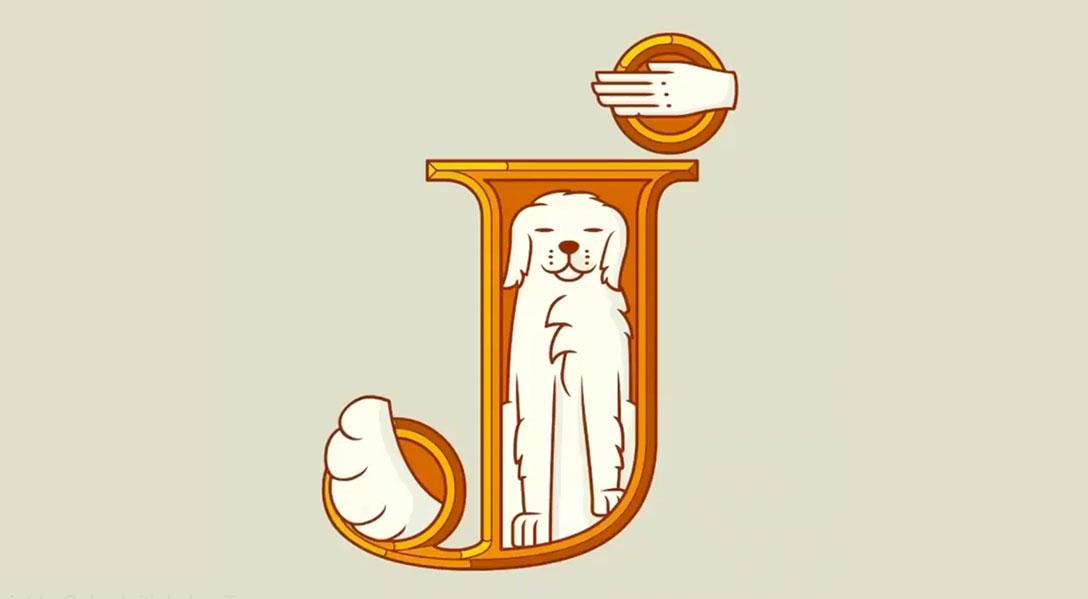
Variable Color Initials by Arthur Reinders Folmer
Where variable fonts added new axis to combine multiple font styles into the one file color fonts do a similar thing but with color. Color fonts have been around in one form or another for a while but they haven't really picked up much traction, there have been a number of different specs for them and unfortunately not all of them are compatible with variable fonts. I don't like to take sides, but in my opinion not supporting variable fonts is a huge mistake for the color font spec. So today we'll look at some variable color fonts. (I may be a little biased)
Essentially Color Fonts allow font designers to merge multiple color layers into one font file and assign a color to each layer. They come with one or more colour palettes predetermined but developers can access and change these values through CSS using the font-palette property.
Support for variable color fonts is pretty good, you might find some discrepancies with rendering between the browsers, but they are still something you can start experimenting with now. Check out my latest list of cool colour fonts you can play with including some from Google Fonts Color font list.
The reason I love Variable color fonts is that they make some of my original experiments in text effects completely obsolete. For me this demonstrates the growth and maturity of the platform and specs and also saves us a lot of time and effort.
There is a great short article called A tiny guide to Variable Color Fonts by Typearture that talks through how they are made and also has some great examples of what you can do with them outside of the "A-Z".
How to use a colour font
Using a color font is very similar to how you would use a regular font. We set the fonts up the same way we usually do, using @font-face.
If it's a variable font with mapped axis for things like weight width etc you can add in the different values in, e.g. see the font-weight definition below.
A good example of a color font is “Rocher Color”. It's an experimental variable color font featuring 2 axes (bevel and shadow) with 11 predefined colour palette options.
To access one of the pre-defined palettes we can use the font-palette property and the font-palette-values function.
First we define the function. Rocher has a number of different palettes you can choose from. The font documentation will tell you what palettes are available.
This will give you the blue palette defined within the font, it looks like the image below.
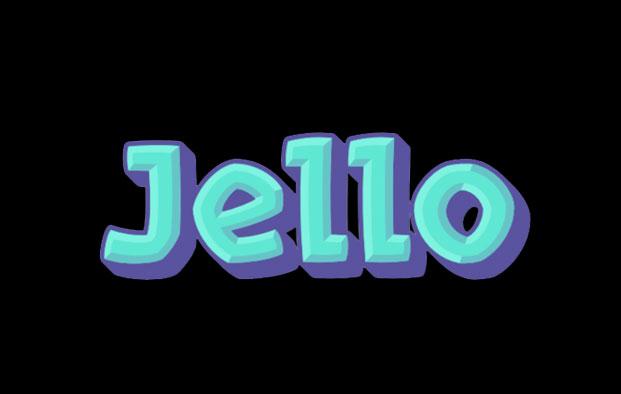
The following image show some of the included palettes for Rocher, but if you don’t like any of the included palettes you can also create your own. I highly recommend you visit the page for Rocher Color to see the animations available as part of the variable font axis.
The process is similar but you don’t need to define a base-palette, instead you set override-colors and define a colour for each of the options in the font, how many colours you have to set will vary between font, in this case we can set 4 colours.
We then use font-palette property exactly the same as the previous example.
This will give you the following colors for the font.
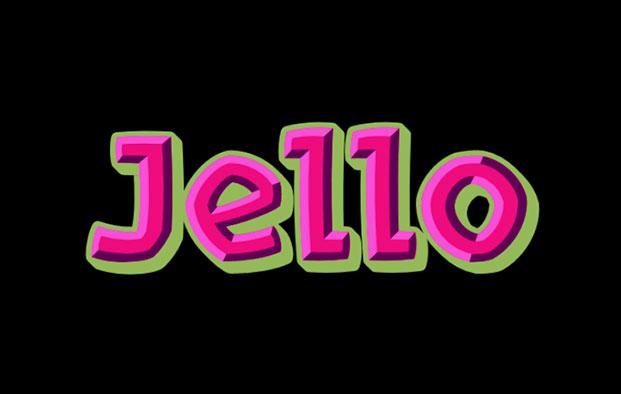
If you want to change one of the colors in a base palette you can do that as well by specifying the base palette and then overriding the one color you want to change. For example:
Like variable fonts, colour fonts expand the opportunities we have for working with text on the web. Right now there aren't a lot to choose from but the more we talk about them the more practical and creative applications we'll have access to. Nabla (below) is a beautiful font demonstrating much of the capabilities and possibilities that variable color fonts provide.
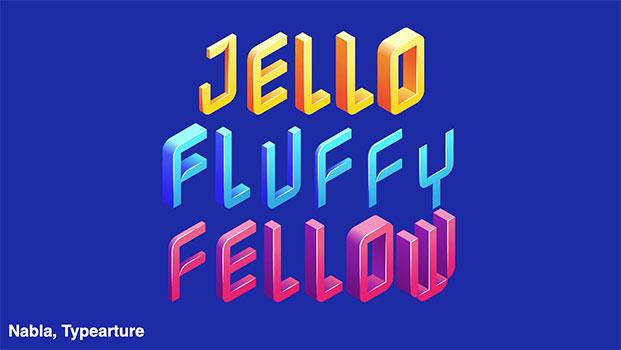
Google fonts have a number of free color fonts available including Reem which is inspired by Arabic calligraphy. It uses color gradients as an artistic interpretation of what the ink flow of traditional calligraphy would look like when written with a nib and ink.
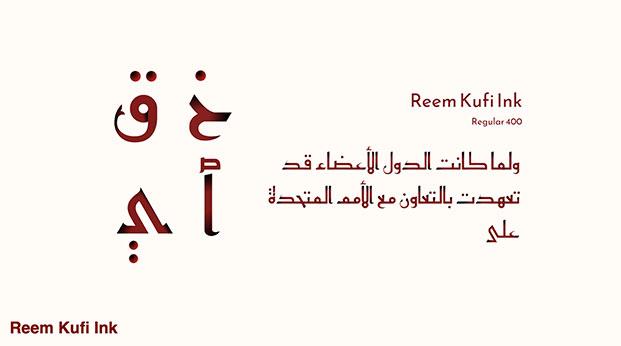
Similarly Google has a font called Noto color emoji available on Google Fonts can give us more options for working with and controlling emojis on the web.
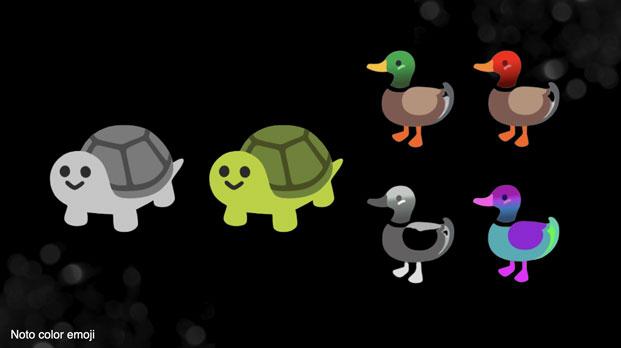
New color fonts are available every day, and like variable fonts they present us with a lot of opportunities for displaying text on the web in creative, and impactful ways. Check out my latest list of colour fonts you can play with now, both paid and free Color font list. You can also check out the color fonts available on Google Fonts.